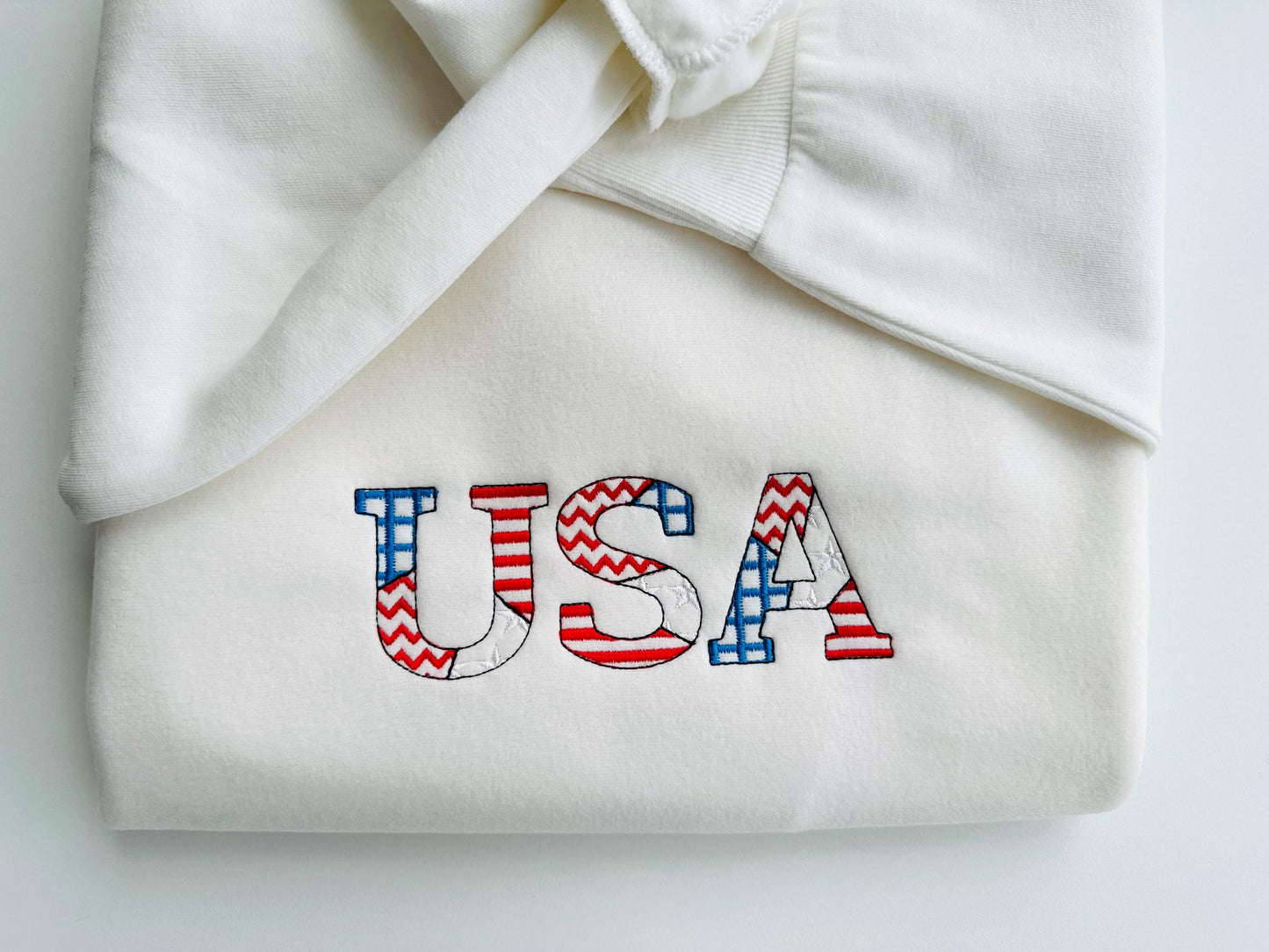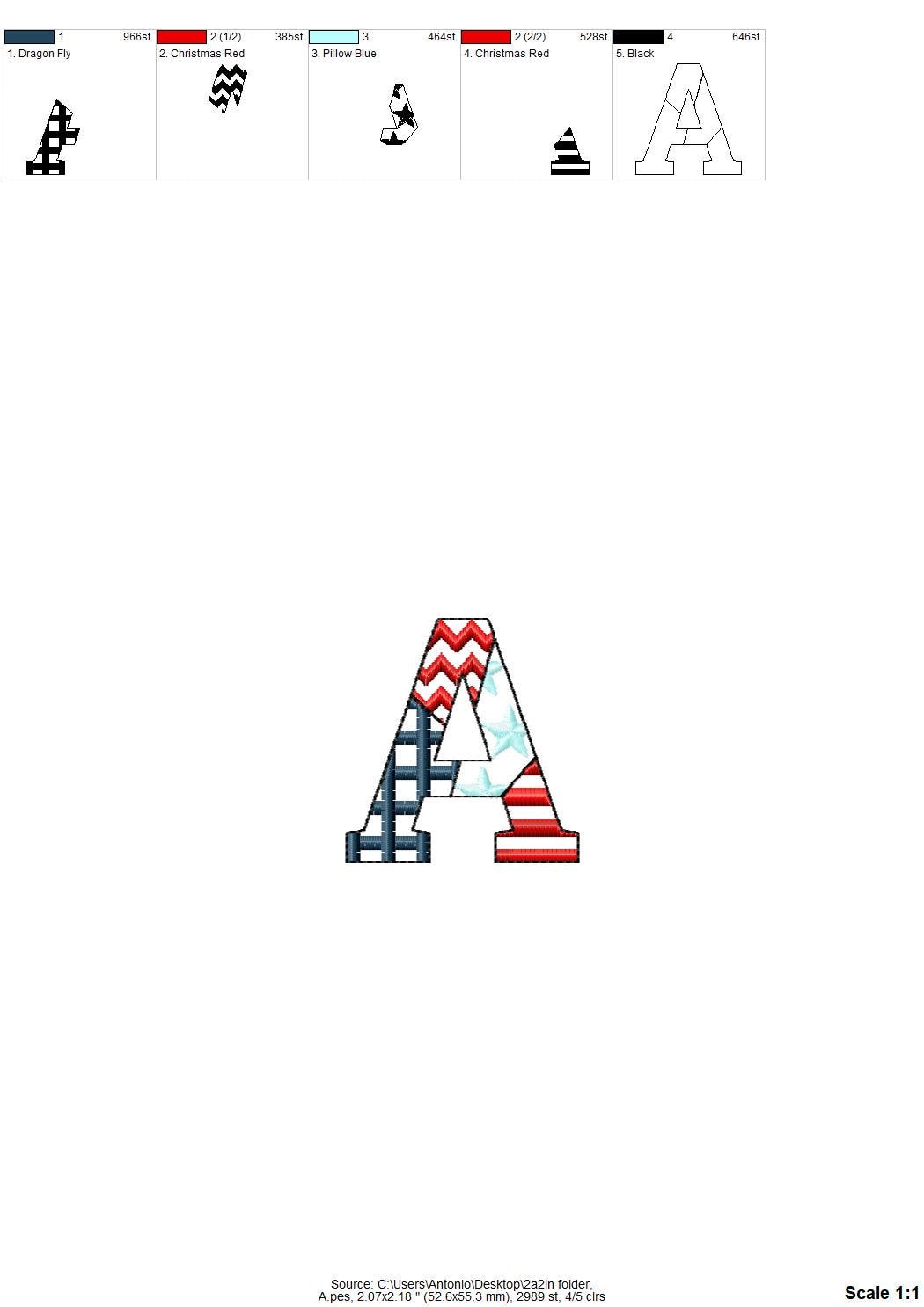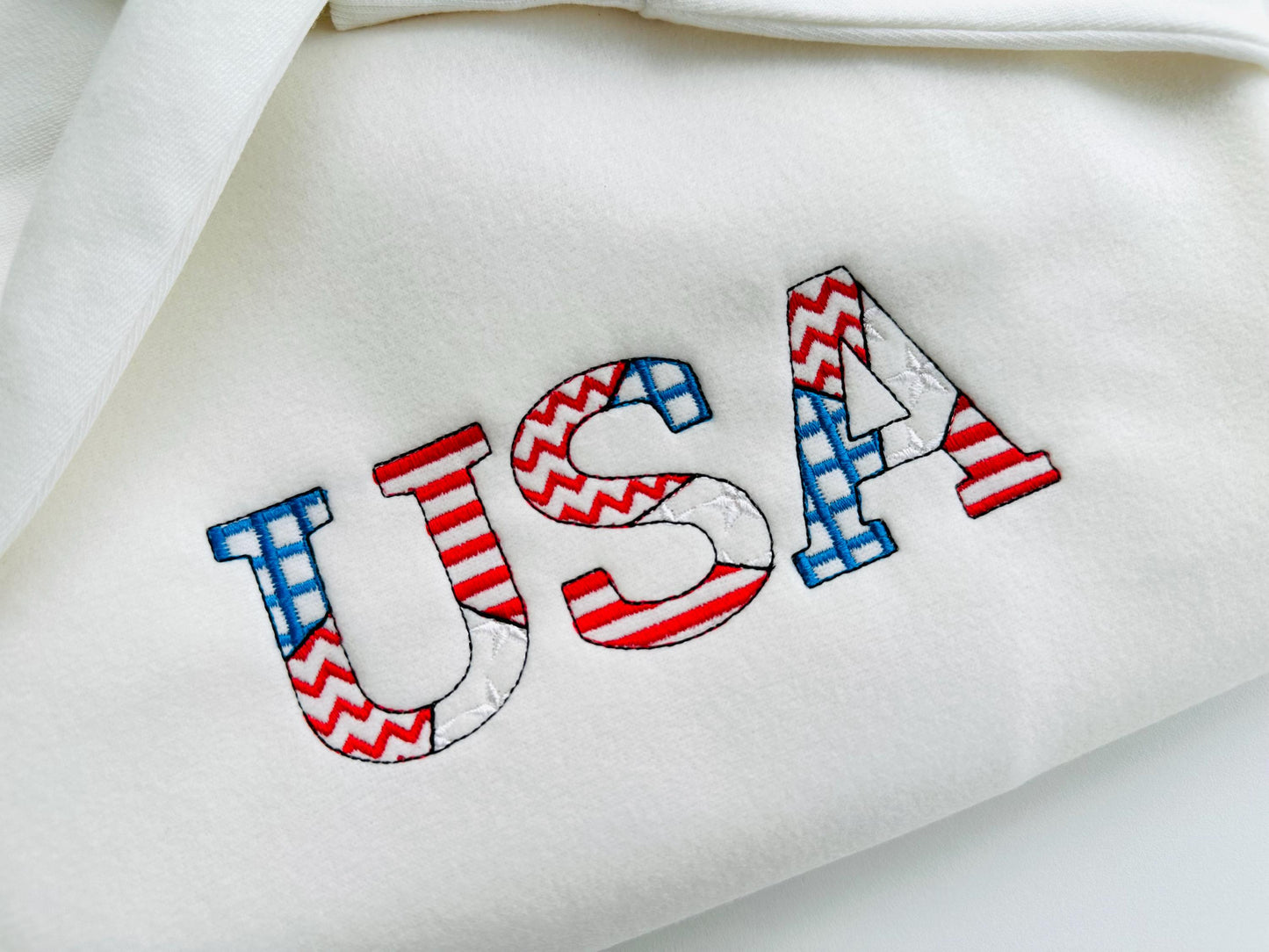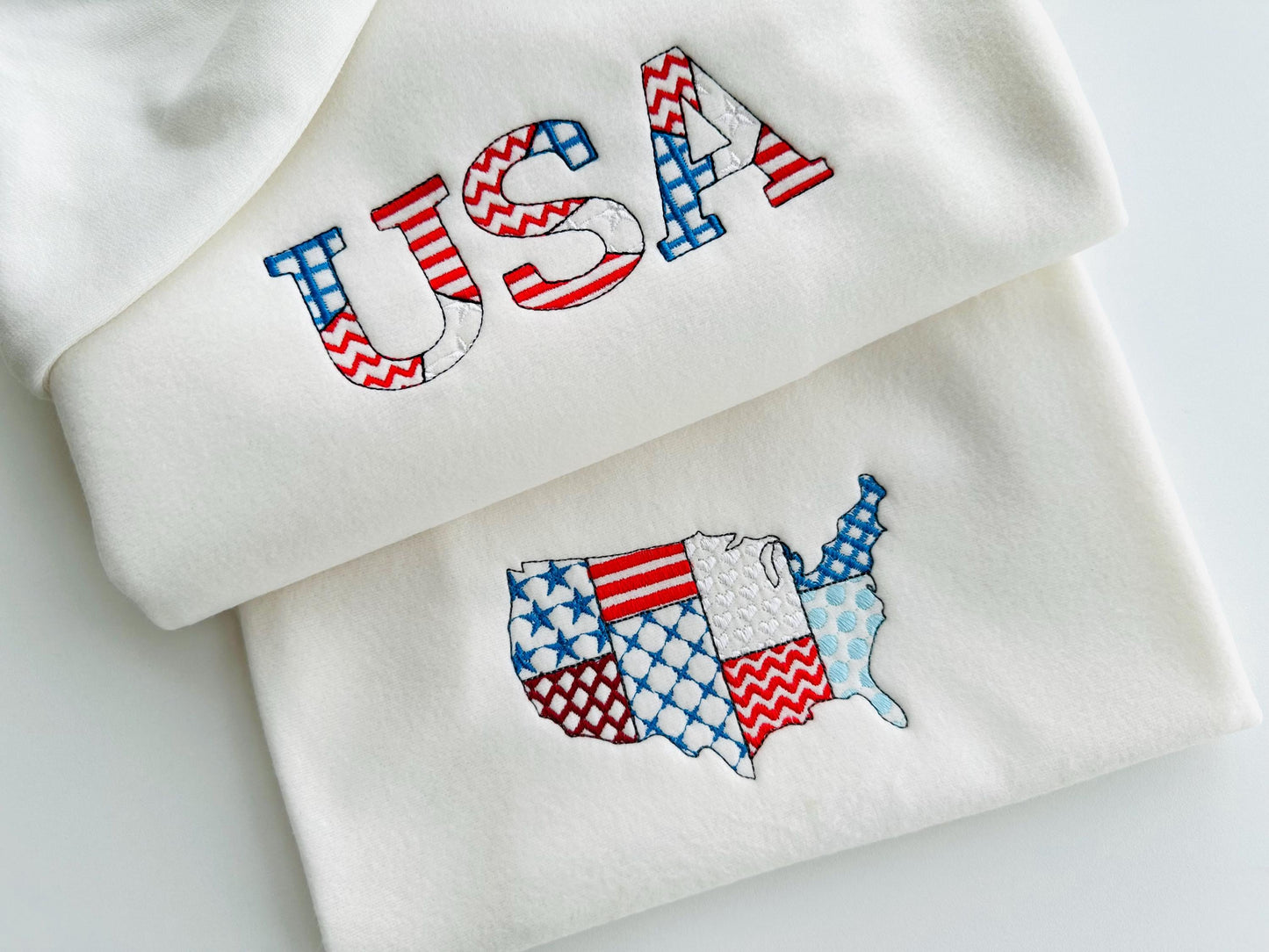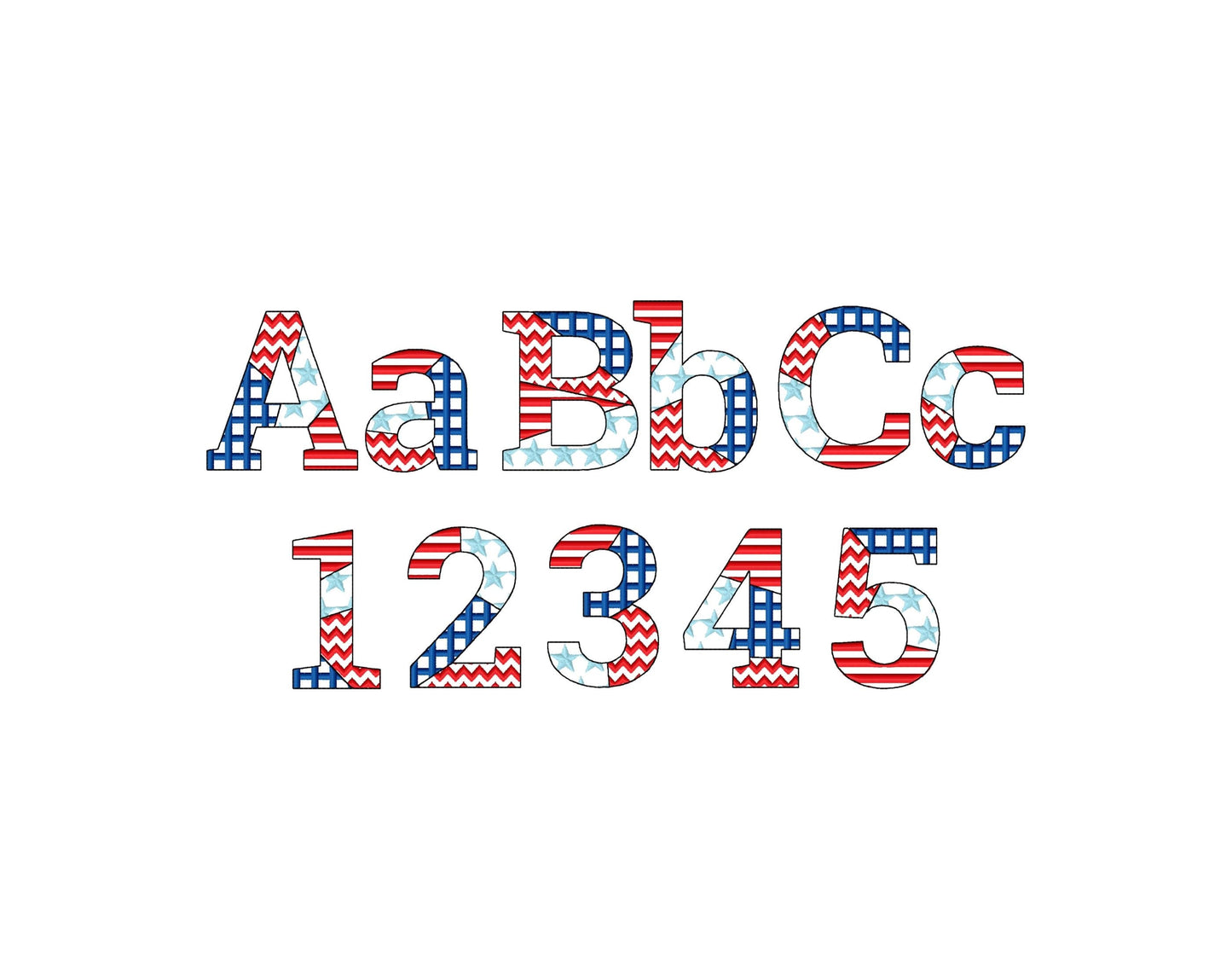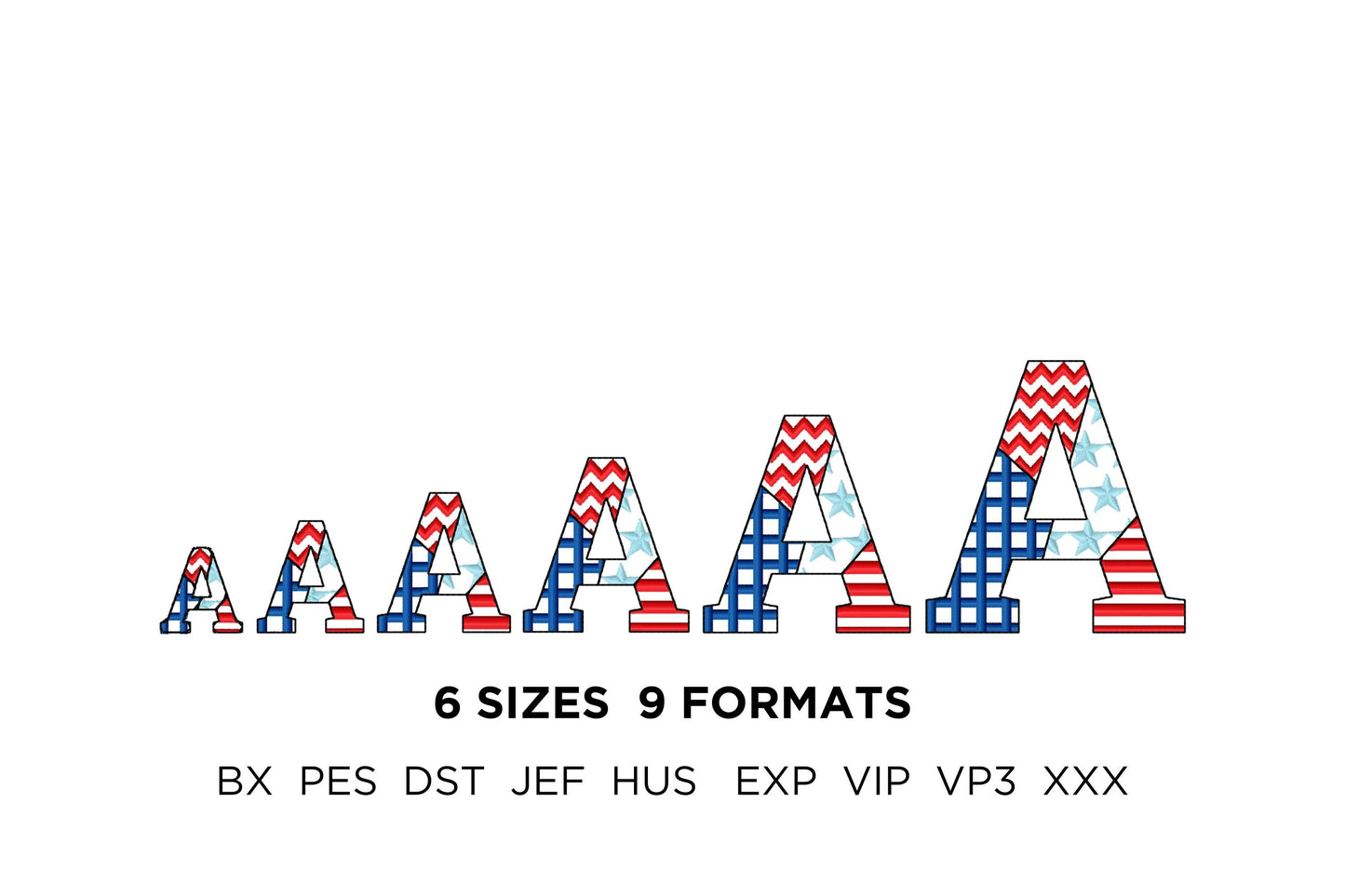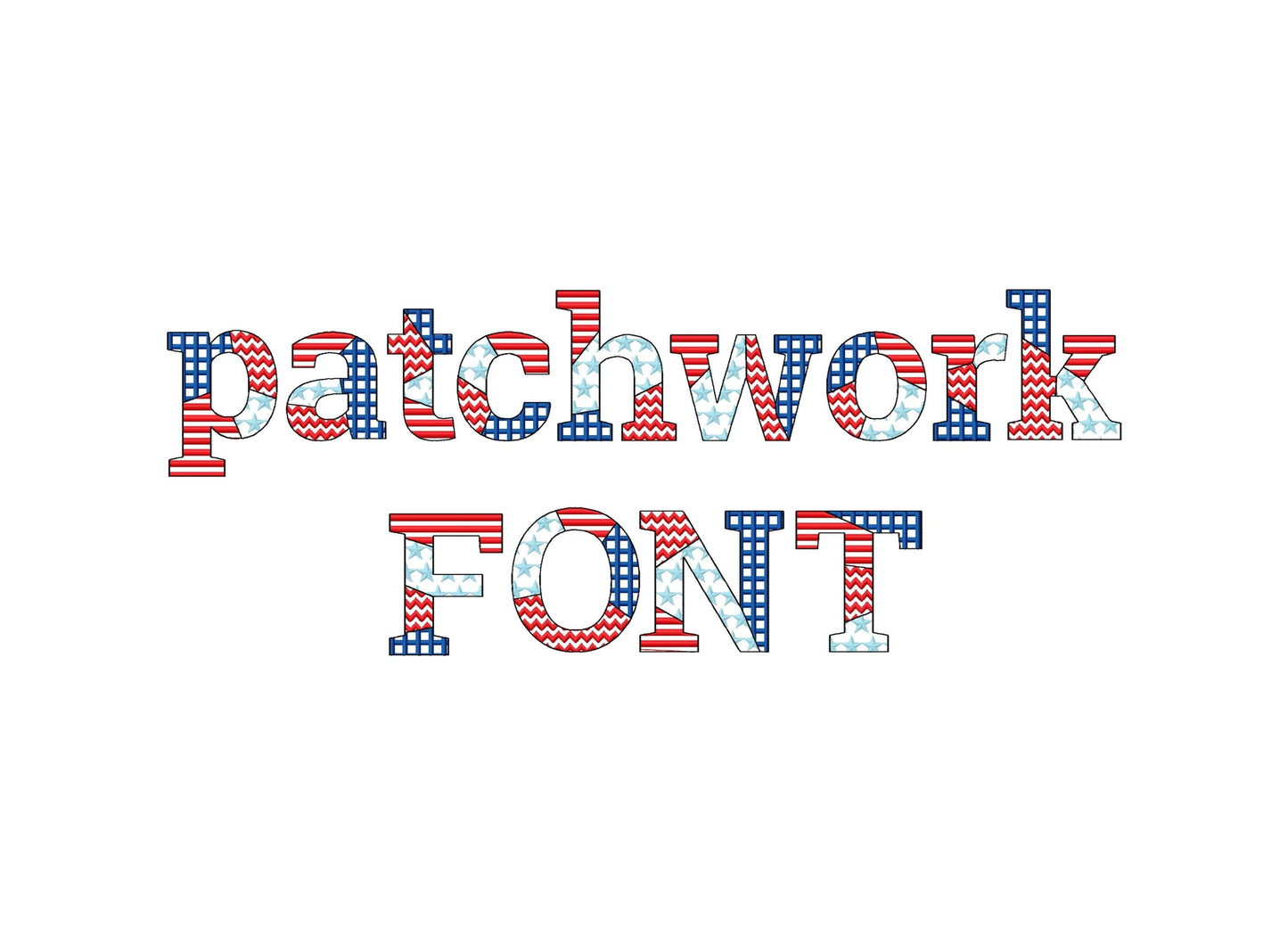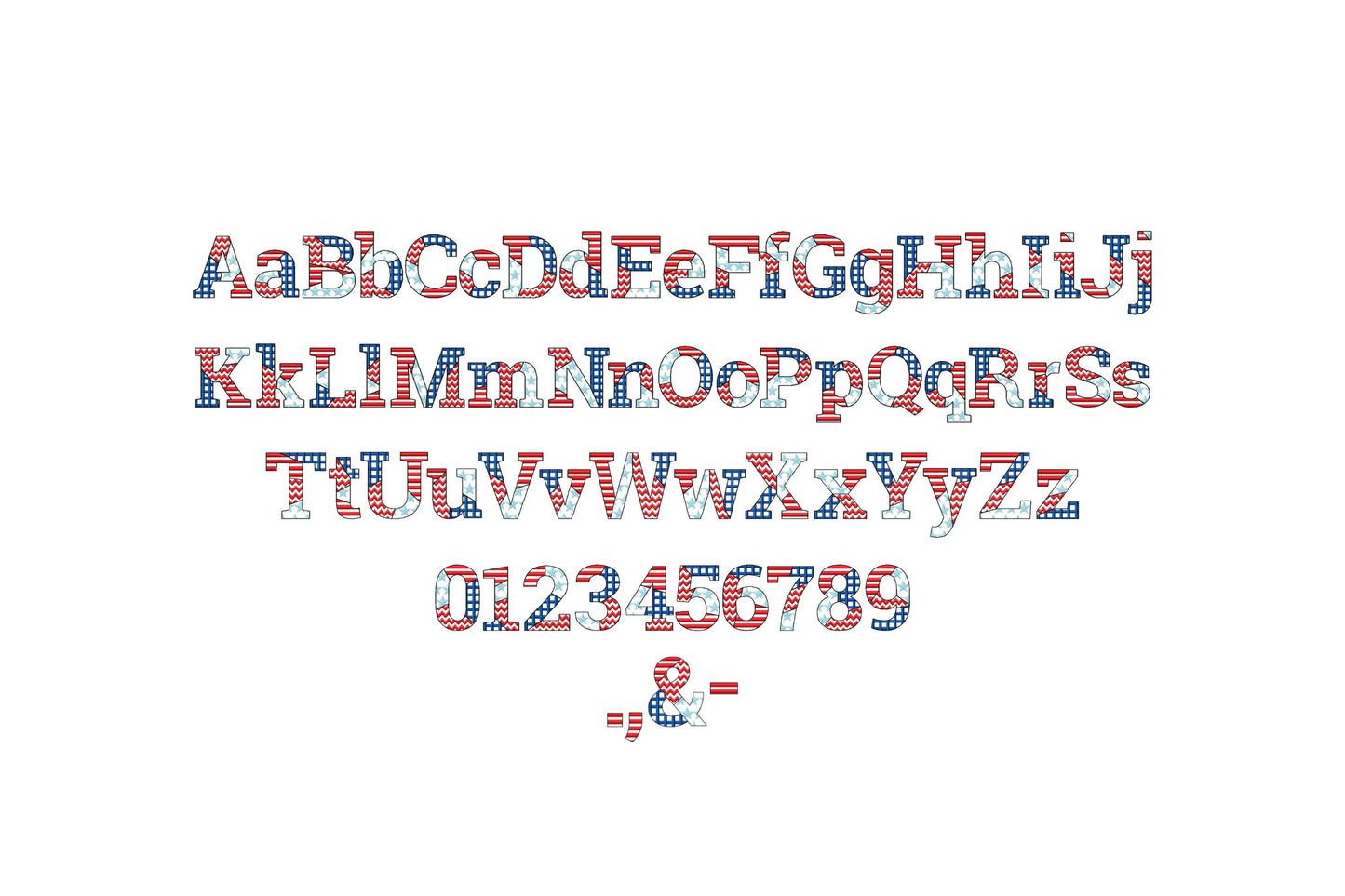
Patchwork USA Flag Patterned Block Font
Or click to open the linkA patriotic patchwork block font filled with a USA flag pattern. Great for Fourth of July shirts, pillows, tote bags and monograms.
Uppercase and lowercase letters, numbers 0 to 9 and punctuation. Six sizes: 1, 1.4, 1.8, 2.2, 2.7 and 3.4 inches. The pattern is stitched inside an outline and the fabric shows through.
- USA flag patchwork block font
- Uppercase, lowercase, numbers 0 to 9, punctuation